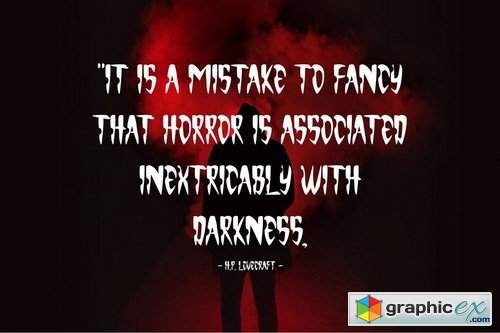
Monsterious - Scary Font
Monsterious - Scary font. Its a handmade font with scary, halloween, and horror look. It’s a great font for fashion, apparel projects, signature, album cover, logo, branding, magazine, social media, & advertisements, but also works great for other projects.